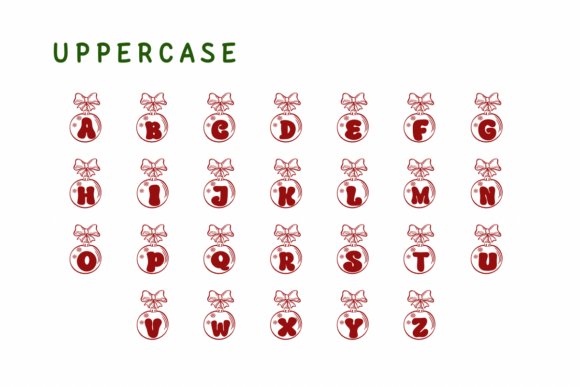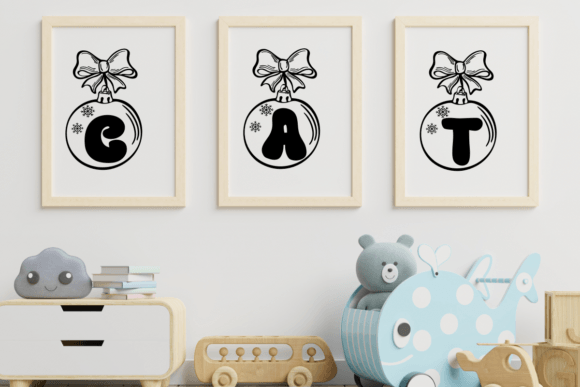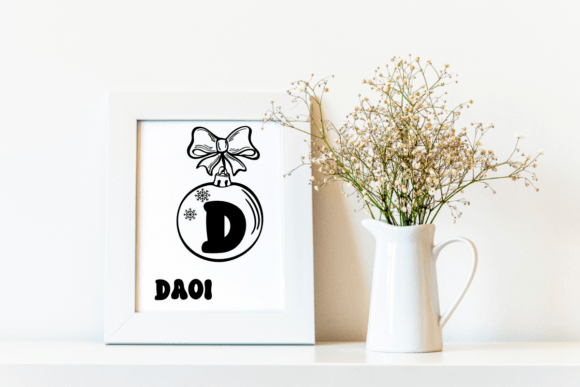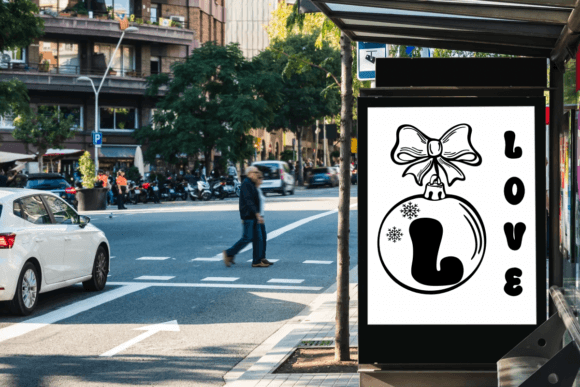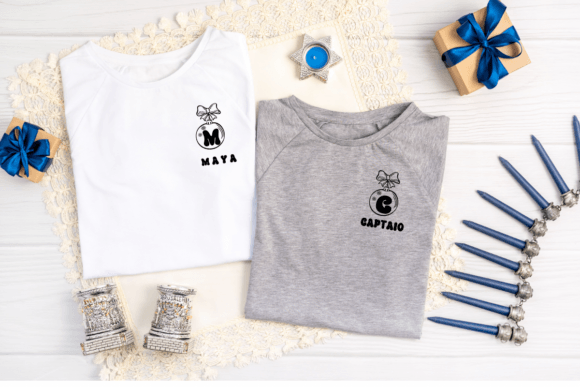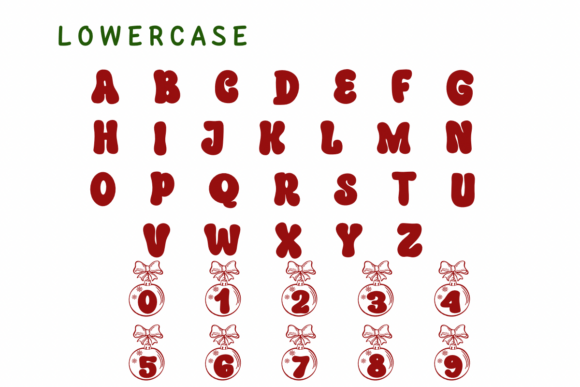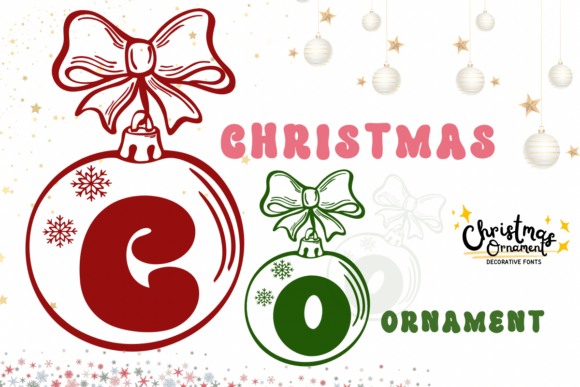
Introducing the Festive Christmas Ornament Font
Are you looking for a font that captures the essence of Christmas? Look no further than the Christmas Ornament Font! This decorative font is perfect for adding a touch of holiday cheer to your designs, from notes and diaries to greeting cards and more.
What is the Christmas Ornament Font?
The Christmas Ornament Font is a unique and festive font that features intricate designs and patterns reminiscent of Christmas ornaments. Its decorative style makes it perfect for adding a personal touch to your writing or designs.
Uses for the Christmas Ornament Font
You can use the Christmas Ornament Font for a variety of projects, including:
- Taking notes: Add a touch of festive flair to your notes and to-do lists.
- Writing a diary: Make your diary entries feel like a special holiday treat.
- Making greeting cards: Create one-of-a-kind holiday cards for friends and family.
- Designing banners: Add a festive touch to your banners and signs.
- Creating content: Use the font to add a holiday theme to your blog posts, social media updates, and more.
- Designing mugs, cards, shirts, and more: The Christmas Ornament Font is perfect for adding a personal touch to your holiday gifts and decorations.
Why Choose the Christmas Ornament Font?
There are many reasons to choose the Christmas Ornament Font for your holiday designs. Here are just a few:
- Unique and festive: The Christmas Ornament Font is a one-of-a-kind font that will add a touch of holiday cheer to your designs.
- Versatile: Use the font for a variety of projects, from notes and diaries to greeting cards and more.
Tips for Using the Christmas Ornament Font
Here are a few tips for getting the most out of the Christmas Ornament Font:
- Experiment with different colors: Try pairing the font with different colors and patterns to create a unique look.
- Mix and match: Combine the Christmas Ornament Font with other fonts and design elements to create a truly unique look.
- Don’t be afraid to get creative: The Christmas Ornament Font is perfect for adding a personal touch to your designs, so don’t be afraid to think outside the box!